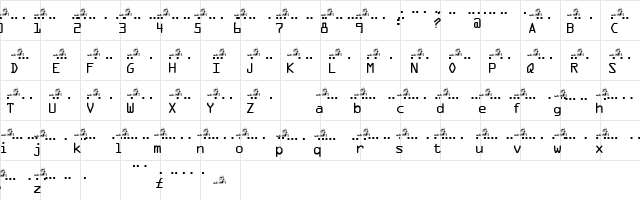
pf_MC morse_VanDuuren_7_Unit S Regular
Design Context for pf_MC morse_VanDuuren_7_Unit S Typeface
pf_MC morse_VanDuuren_7_Unit S is a composed and adaptable typeface that performs quietly and consistently across a wide range of design contexts.